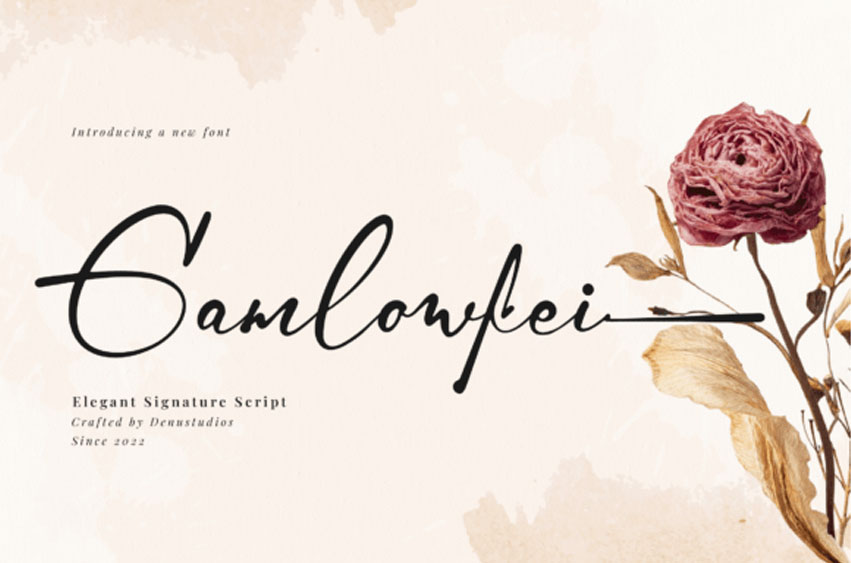
Gamlowfei Font Add a personal, high-end touch to your work with Gamlowfei, an exquisite signature script that defines effortless elegance.
Characterized by its long, flowing descenders and fluid, hand-inked strokes, this font mimics the sophisticated handwriting of a professional stylist. It is the ultimate choice for luxury branding, wedding stationery, photography watermarks, and high-fashion editorial layouts. Gamlowfei turns every word into a graceful statement of style and class.